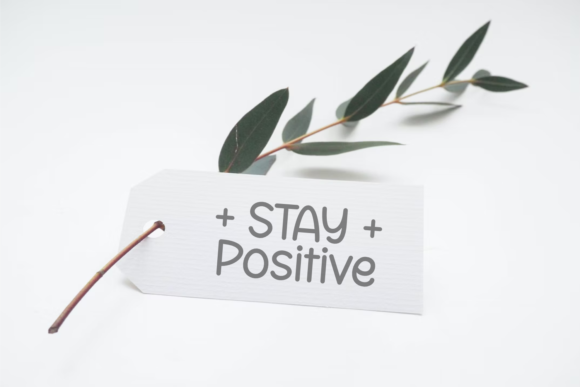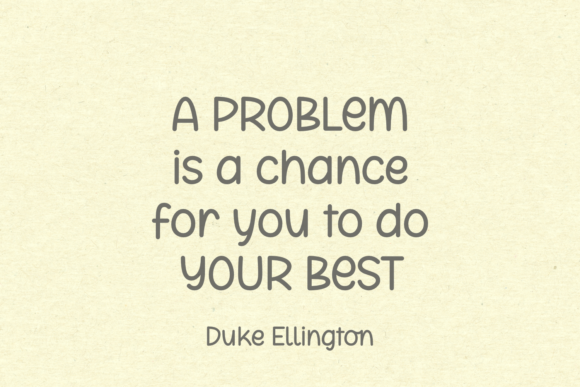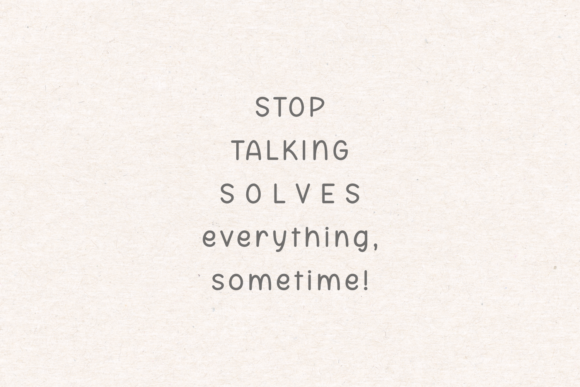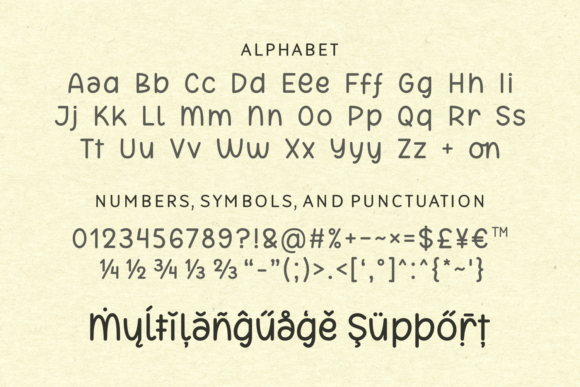
Unlock Creative Potential with Focus on Solution Font
In the world of design, the right font can make all the difference. It can elevate your project from ordinary to extraordinary, convey the perfect tone, and capture the essence of your message. For designers and crafters looking for a versatile and modern handwritten font, Focus on Solution is an excellent choice. This lovely font is perfect for creating stunning magazine previews and covers, designing logos, crafting unique shirt designs, and meeting various graphic needs.
The Versatility of Focus on Solution Font
Focus on Solution Font stands out with its modern handwritten style, which brings a touch of elegance and sophistication to any design project. Its versatility is one of its most appealing features, making it suitable for a wide range of applications. Whether you’re working on a:
- Magazine or newspaper layout: Use Focus on Solution to create eye-catching headlines, titles, and section dividers that draw readers in.
- Logo design: This font can help you craft a unique and memorable brand identity that sets you apart from the competition.
- T-shirt or apparel design: Focus on Solution’s stylish and modern look makes it perfect for creating trendy and wearable designs.
- Graphic project: From brochures and flyers to posters and social media graphics, this font can add a professional touch to your work.
Why Choose Focus on Solution Font?
So, what makes Focus on Solution Font a go-to choice for designers and crafters? Here are a few reasons:
- Modern and Fresh Look: Focus on Solution boasts a contemporary handwritten style that’s both stylish and current.
- Ease of Use: This font is easy to read and works well in various sizes, making it perfect for both digital and print applications.
- Highly Versatile: Its adaptability makes it suitable for a broad spectrum of design projects, from editorial design to branding and advertising.
- Unique Character: Focus on Solution has a distinctive charm that can add personality and flair to your designs.
Tips for Using Focus on Solution Font
To get the most out of Focus on Solution Font, consider the following tips:
- Pair it Wisely: Combine Focus on Solution with complementary fonts to create visual interest and hierarchy in your designs.
- Play with Sizes and Colors: Experiment with different sizes and colors to make your text stand out or blend in, depending on your design goals.
- Use it to Create Contrast: Focus on Solution’s unique style can be used to create contrast and draw attention to specific parts of your design.
- Experiment with Effects: Don’t be afraid to add effects like shadows, outlines, or textures to give your text an extra boost of personality.
Focus on Solution Font is a powerful tool for designers and crafters looking to add a modern and elegant touch to their projects. Its versatility, readability, and unique character make it an excellent choice for a wide range of applications. By incorporating Focus on Solution into your design workflow, you can unlock new creative possibilities and take your projects to the next level. So, why wait? Dive in and discover the potential of Focus on Solution Font for yourself!